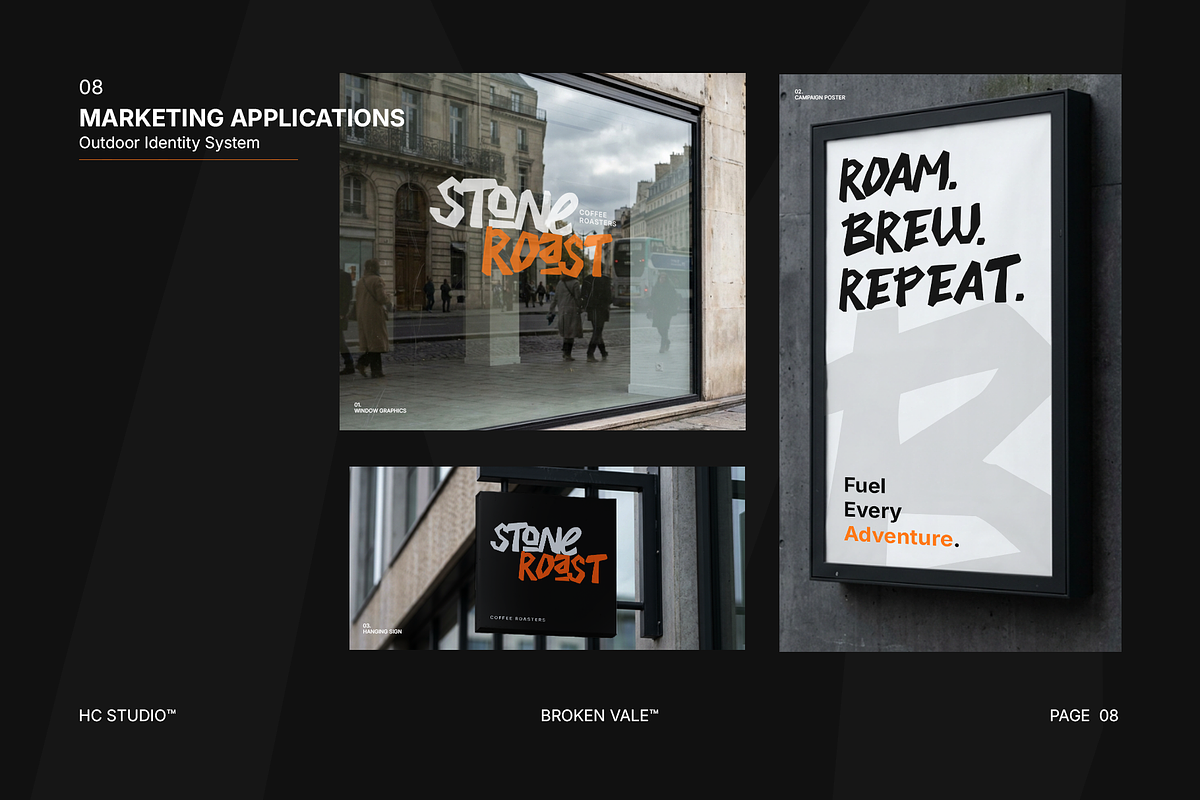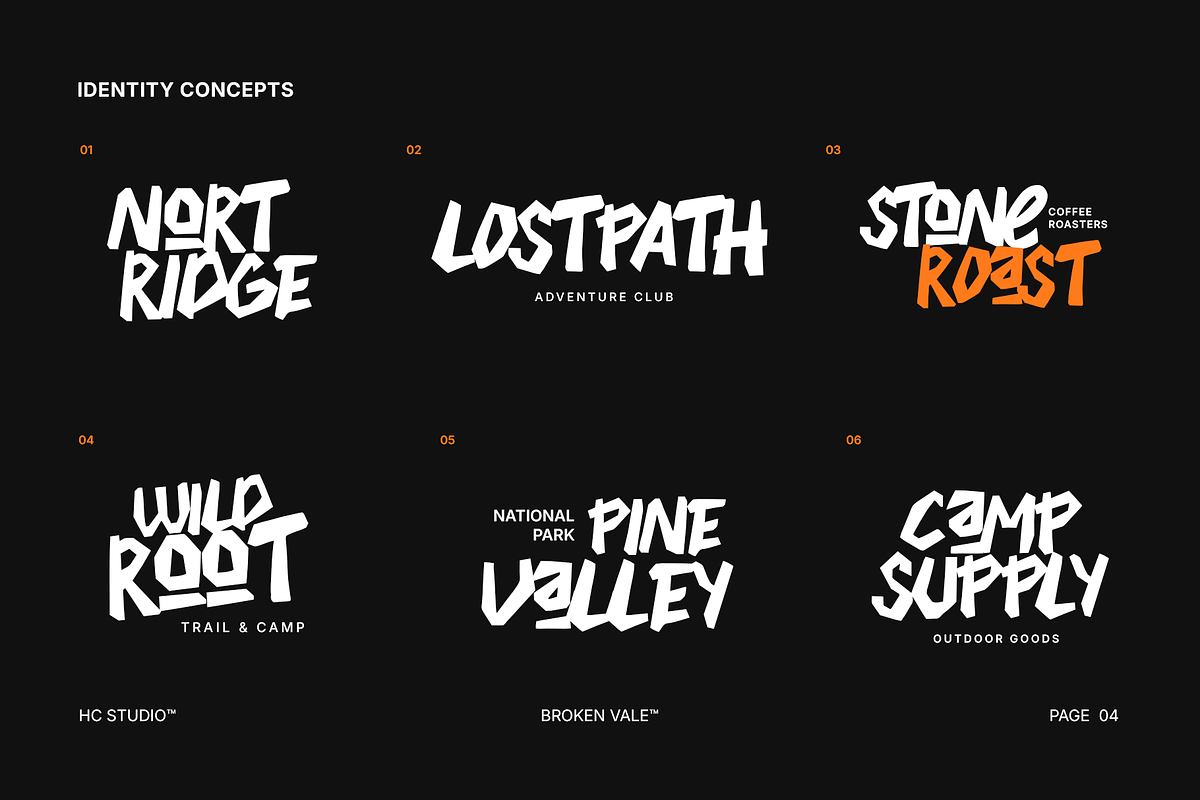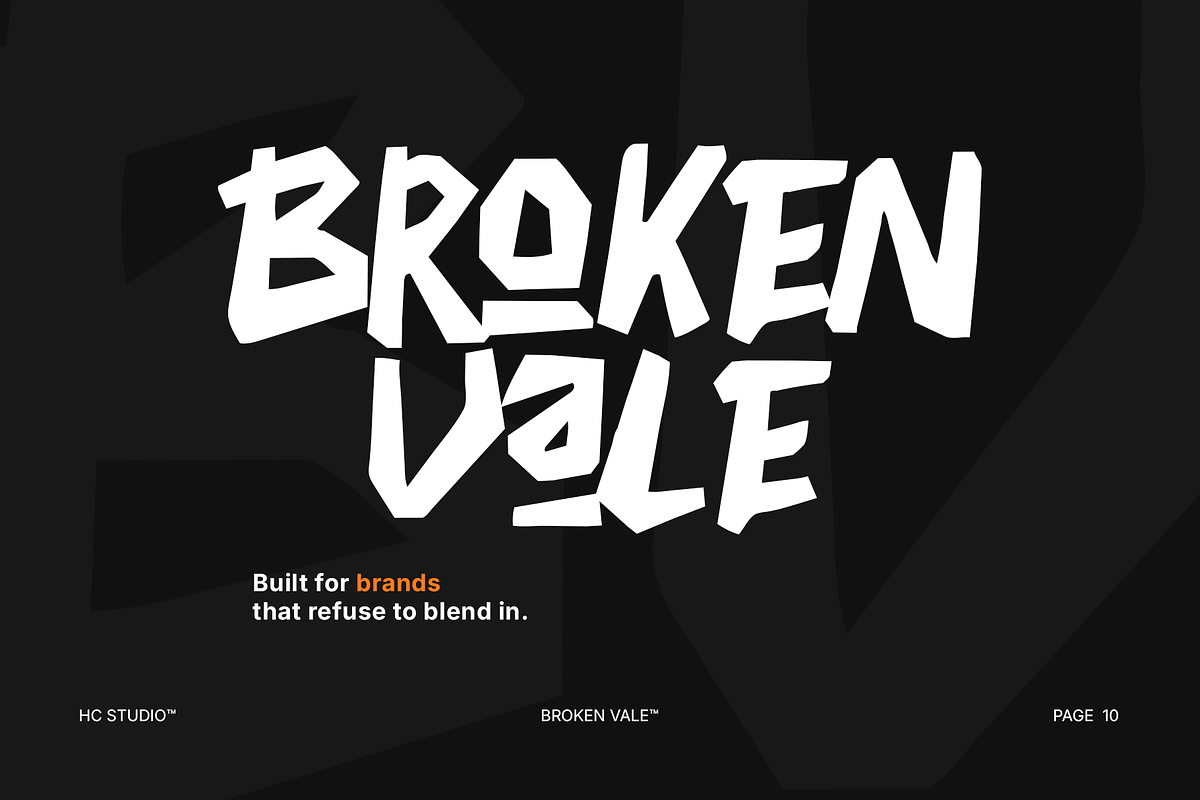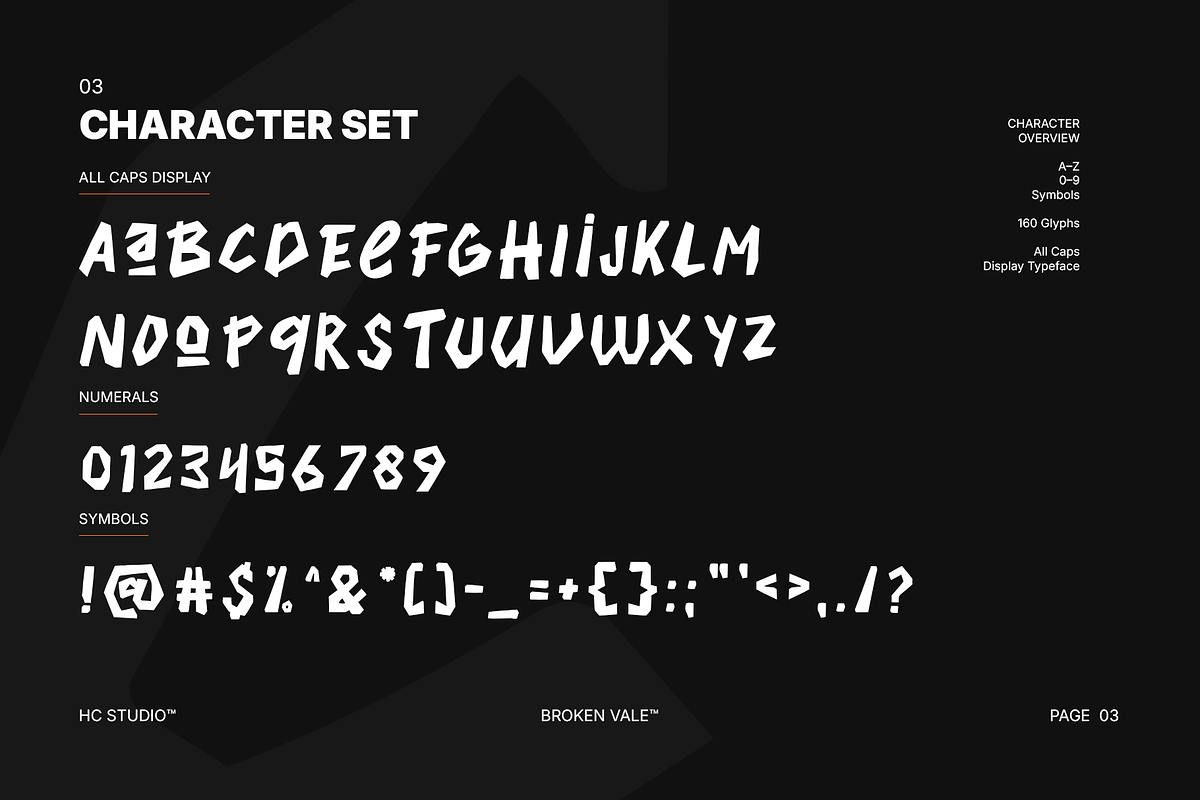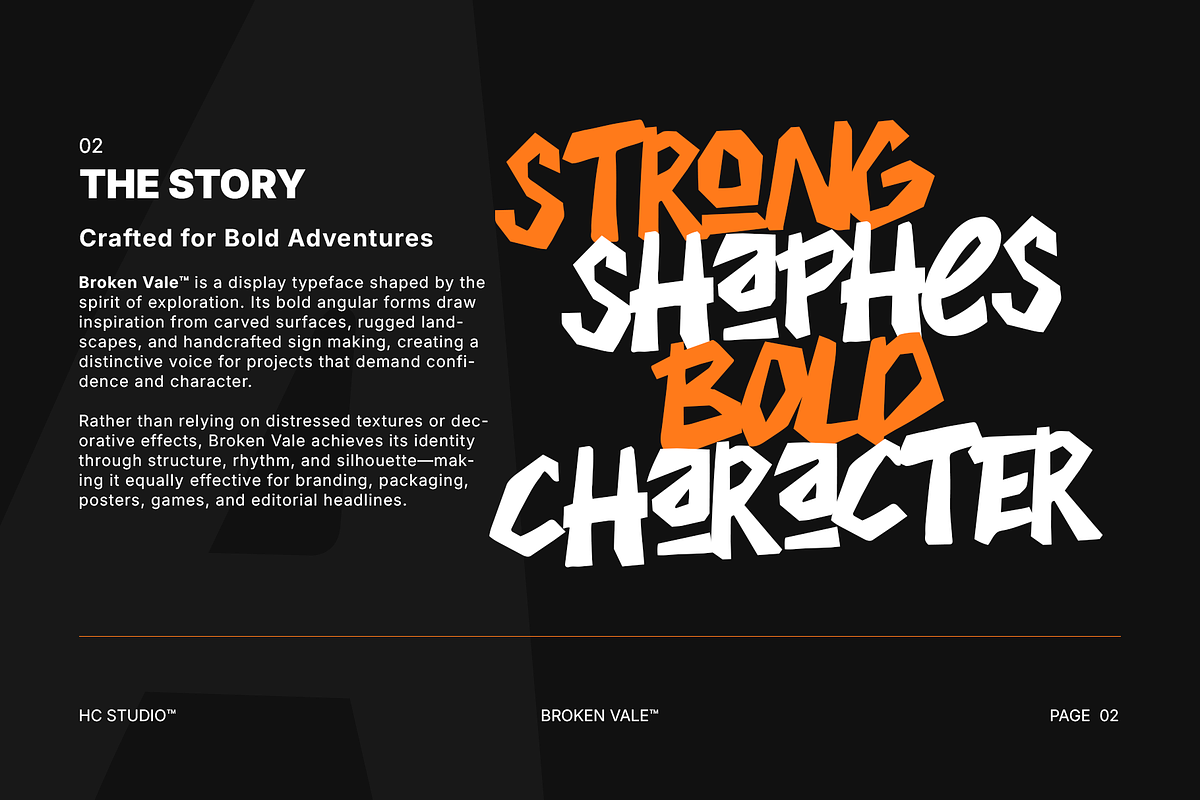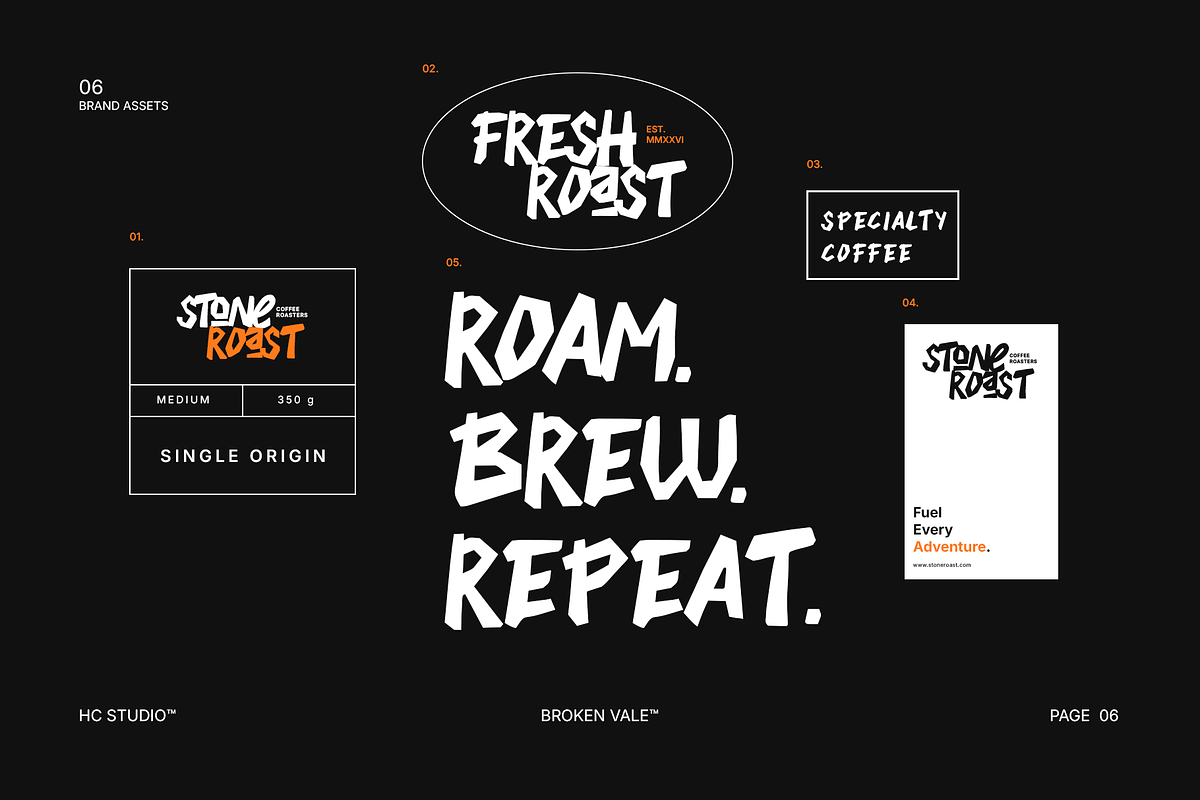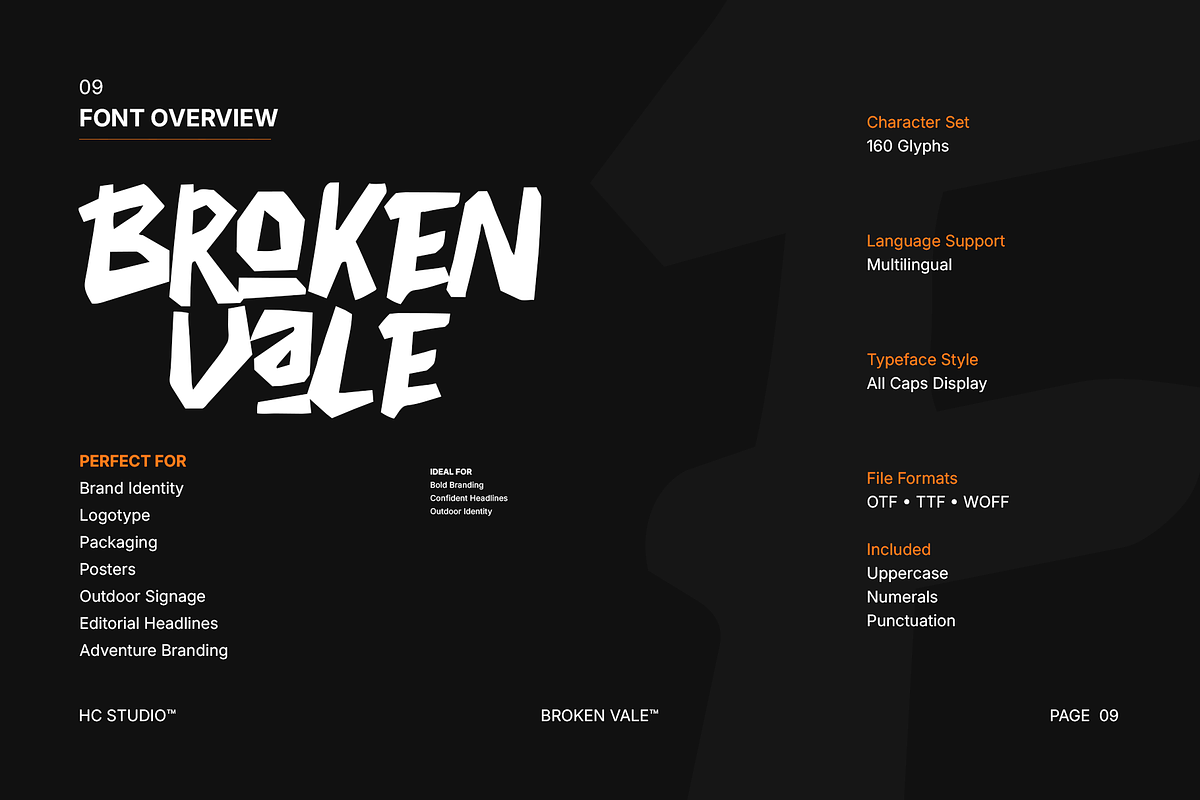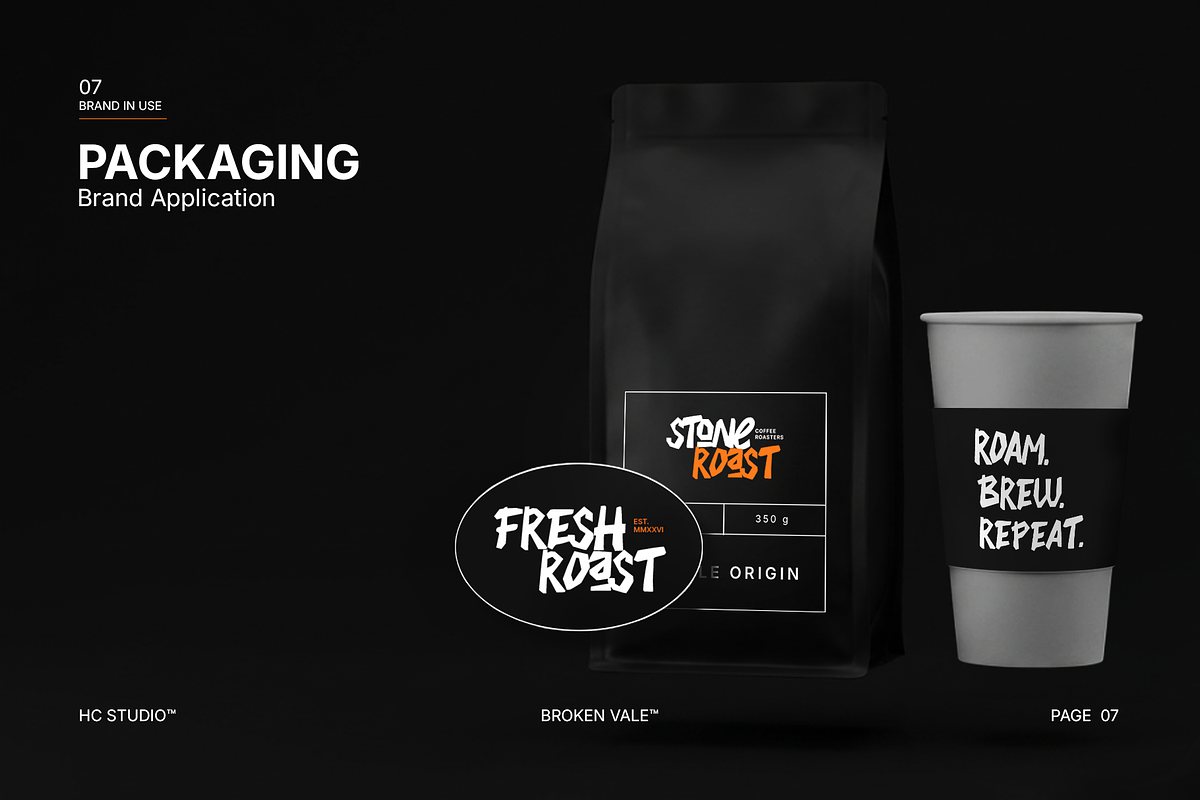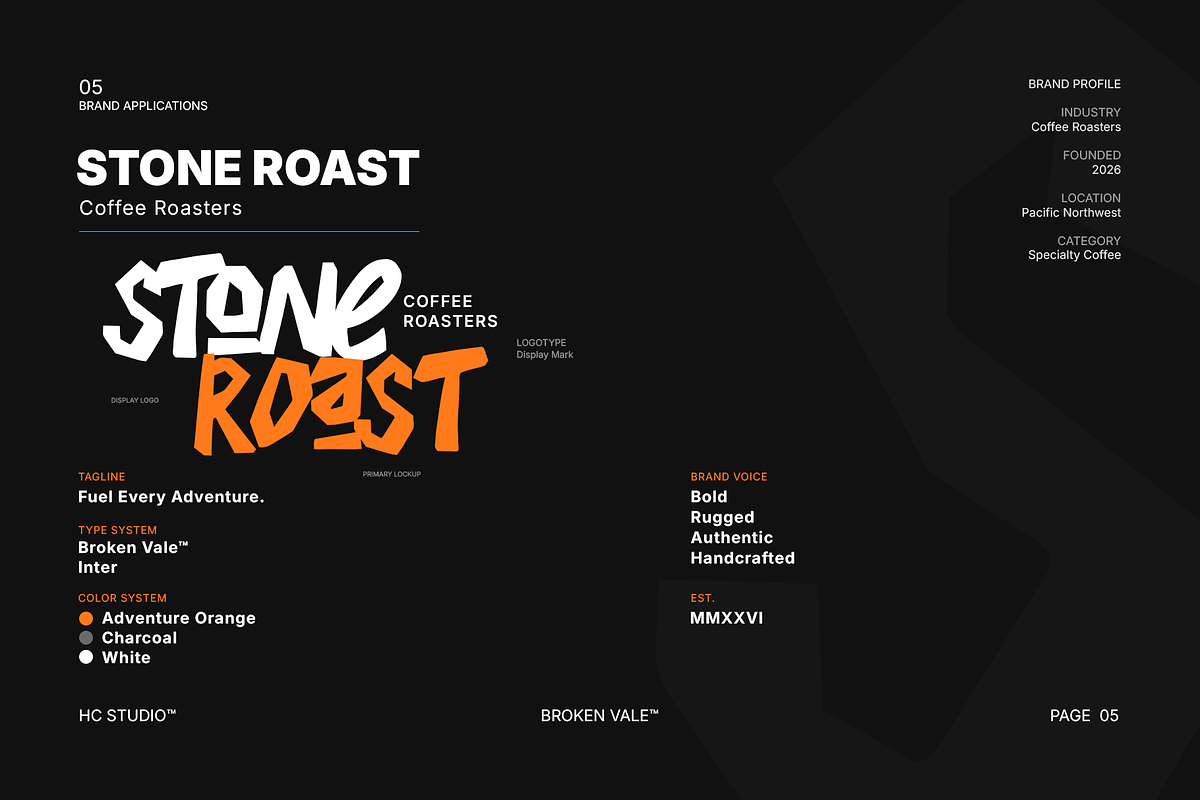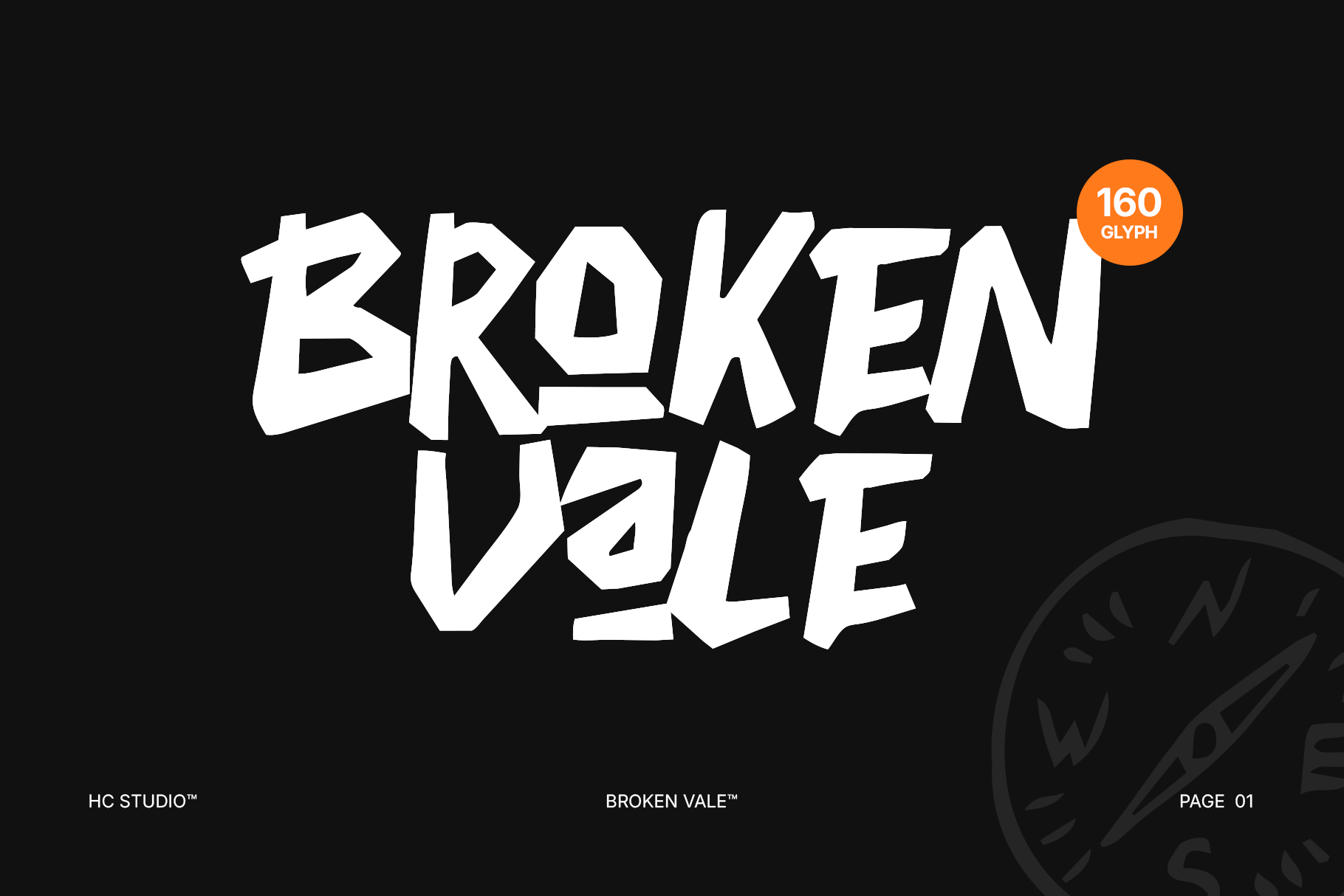
Broken Vale - Display Typeface
Broken Vale™ is a bold all-caps display typeface inspired by rugged landscapes, handcrafted signage, and the spirit of exploration. Its angular forms and expressive construction create a strong visual presence, making it an excellent choice for projects that demand confidence, character, and originality.
Designed with branding in mind, Broken Vale™ performs beautifully across logos, packaging, posters, outdoor signage, merchandise, and editorial headlines. Rather than relying on decorative effects, it communicates personality through bold structure, handcrafted rhythm, and distinctive letterforms that leave a lasting impression.
Whether you're creating an outdoor brand, a specialty coffee identity, a lifestyle product, or a bold promotional campaign, Broken Vale™ provides the visual impact needed to build memorable brand experiences.
• Bold All Caps Display Typeface
• 160 Glyphs
• Multilingual Language Support
• Uppercase Characters
• Numerals
• Punctuation
• Logo Friendly
• Branding Ready
• High Impact Headlines
• Print & Digital Ready
PERFECT FOR
• Brand Identity
• Logo Design
• Packaging Design
• Outdoor Branding
• Coffee Roasters
• Food & Beverage Branding
• Lifestyle Brands
• Adventure & Camping Brands
• Apparel Graphics
• Merchandise
• Editorial Headlines
• Posters
• Signage
• Social Media Campaigns
• Marketing Materials
LANGUAGE SUPPORT
Broken Vale™ includes multilingual language support, allowing you to create bold and consistent typography across a wide range of Latin-based languages.